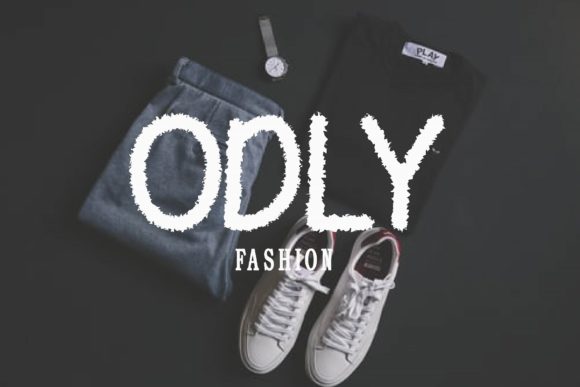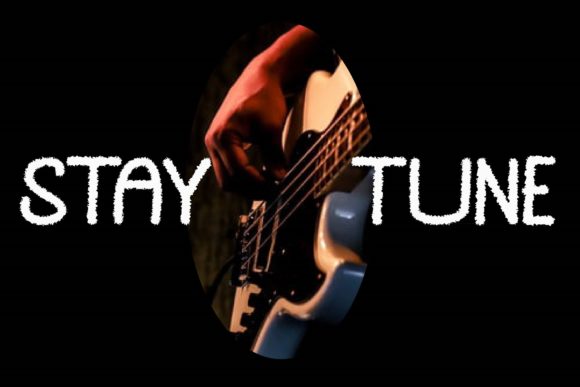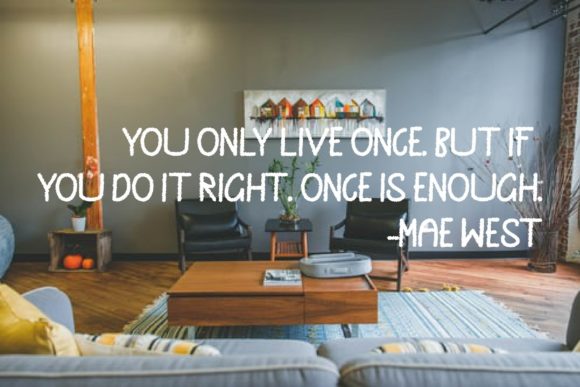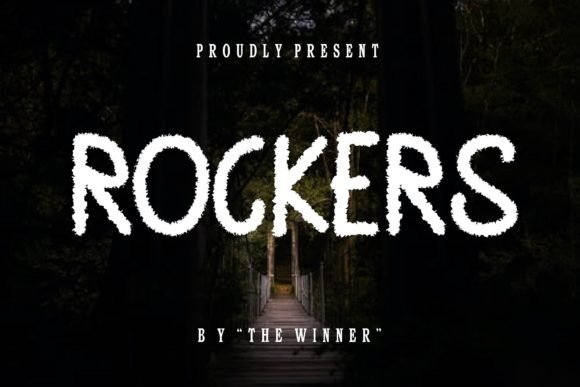
Introduction to Rockers Font
Introducing Rockers, a rough and cool display font.
It’s perfect for branding, product packaging, invitations, quotes, t-shirts, labels, posters, or any logo you want to develop Make all your design projects more attractive and take your designs to the next level with Rockers.
Key Features of Rockers Font
Why Choose Rockers Font?
Rockers Font offers exceptional quality and versatility, making it a valuable addition to your design toolkit. Whether you’re creating for personal projects or commercial use, Rockers Font delivers professional results.